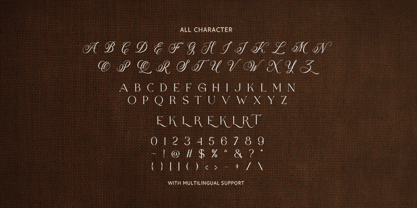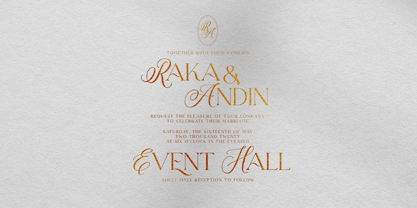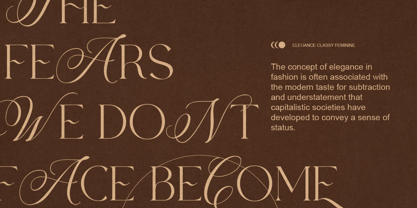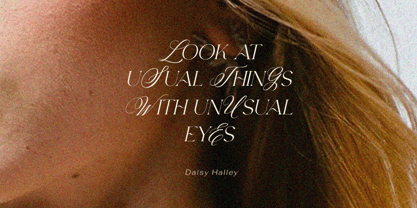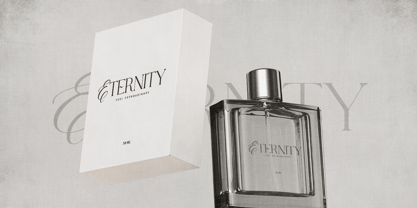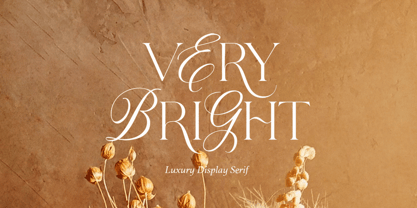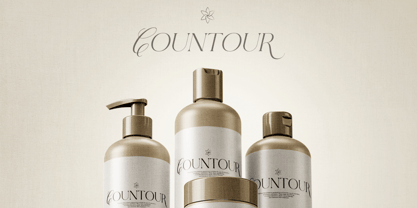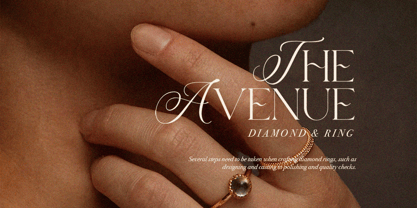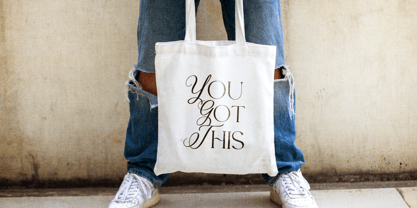
Very Bright
The Very Bright Font Family was designed by Sarid Ezra, Dzikrul Aulia and published by Bale Type. Very Bright contains 2 styles and family package options. More about this family
Very Bright is a luxury serif with stylish uppercase. With glamour and chic uppercase that uniquely you can use it in the middle of a word. This font is so versatile that will suitable for quotes, branding, aesthetic logo, wedding invitations, or any projects. Very Bright also support multi language.